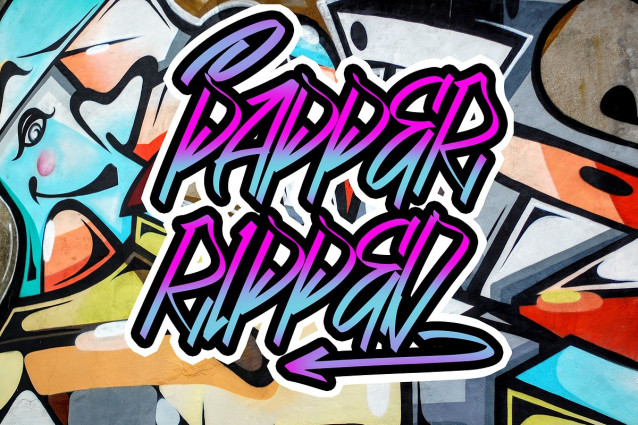
Ameko Brush Font
Ameko Brush Font a bold hand-brush font designed with unique, expressive character shapes. Its dynamic and versatile style is perfect for enhancing graphic designs, from branding to posters, packaging, and more. Whether you’re creating eye-catching headlines or artistic logos, AMEKO adds an authentic, handcrafted touch to your work.